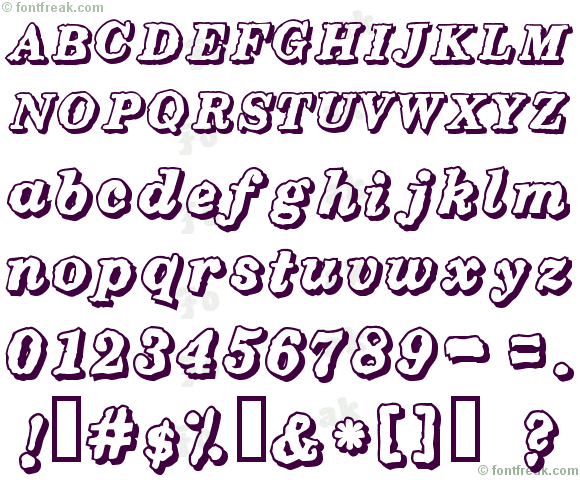
Holiday
The Holiday font by Pizzadude is a delightful display typeface that captures the essence of festive cheer. This decorative font features a playful and whimsical design, characterized by its bold stroke weight and charming rounded edges. The letters are crafted with a slight contrast, giving them a delightful bounce, while the spacing allows for easy readability, making it perfect for various applications.
Ideal for creating vibrant wedding invitations, the Holiday font adds a touch of joy to any special occasion. Its unique style also shines on movie posters, where it can evoke a sense of nostalgia and fun, making it stand out in a crowded market. Additionally, this font works wonderfully for restaurant menus, particularly those that want to convey a casual, inviting atmosphere. Content creators will find it suitable for social media graphics and holiday-themed promotional material, as it instantly draws attention with its festive flair.
What sets the Holiday font apart is its ability to evoke feelings of joy and celebration. The unique visual characteristics not only make it visually appealing but also create a sense of warmth that resonates with audiences. Whether you're designing for a holiday event or simply want to bring a cheerful vibe to your work, the Holiday font free download offers the perfect solution for a wide range of creative needs.